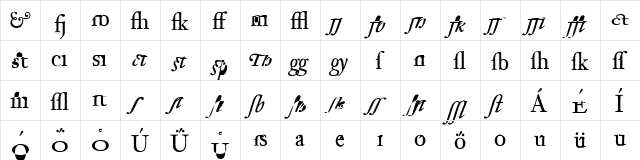
Archetype Regular
Design Context for Archetype Typeface
Archetype is a composed and adaptable typeface that performs quietly and consistently across a wide range of design contexts.